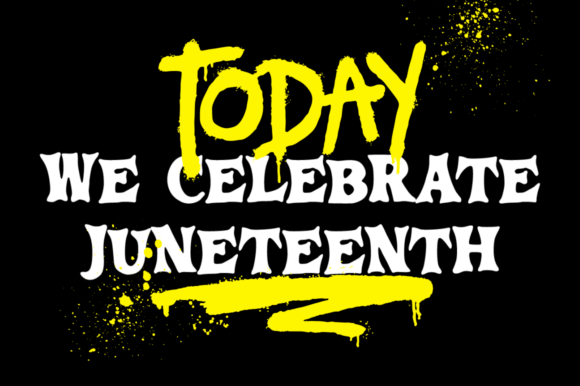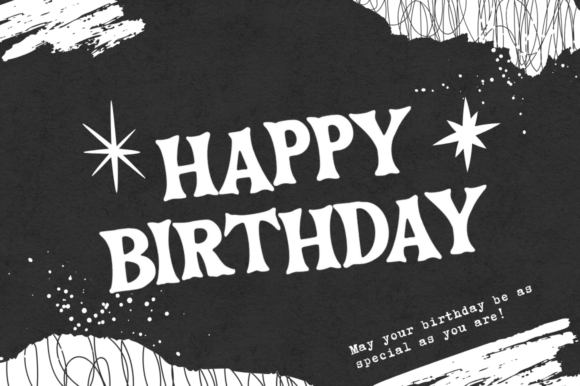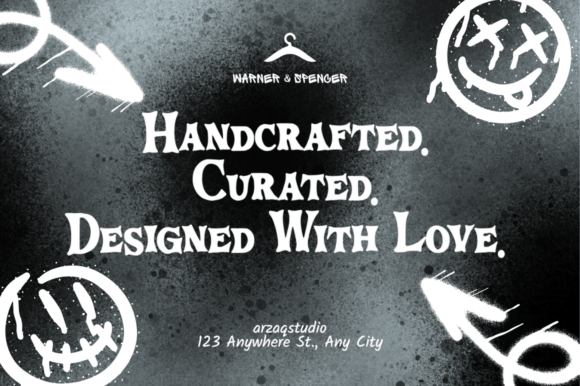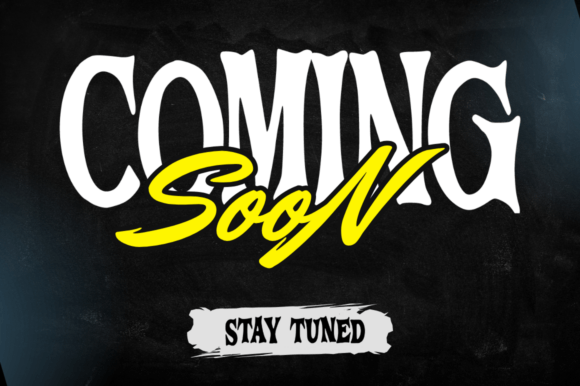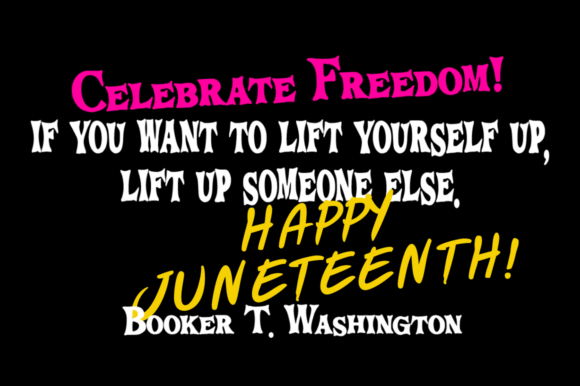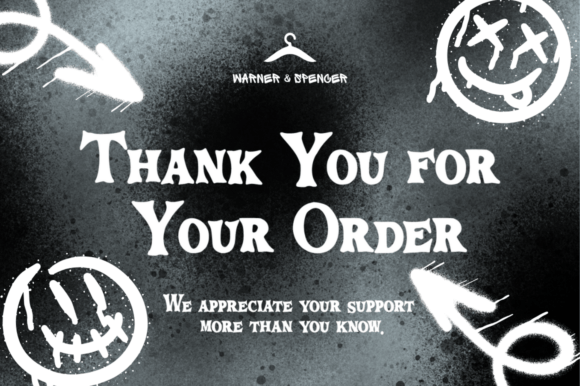
Introduction to Midnightstreet Font
Midnight Street is a bold and edgy display font with a hand-drawn, vintage street vibe.
Perfect for posters, album covers, urban branding, retro signage, or any project that needs a rebellious and eye-catching style Its unique letterforms bring a strong personality that stands out in both digital and print designs, making it ideal for creative projects, t-shirts, stickers, logos, and more.
Key Features of Midnightstreet Font